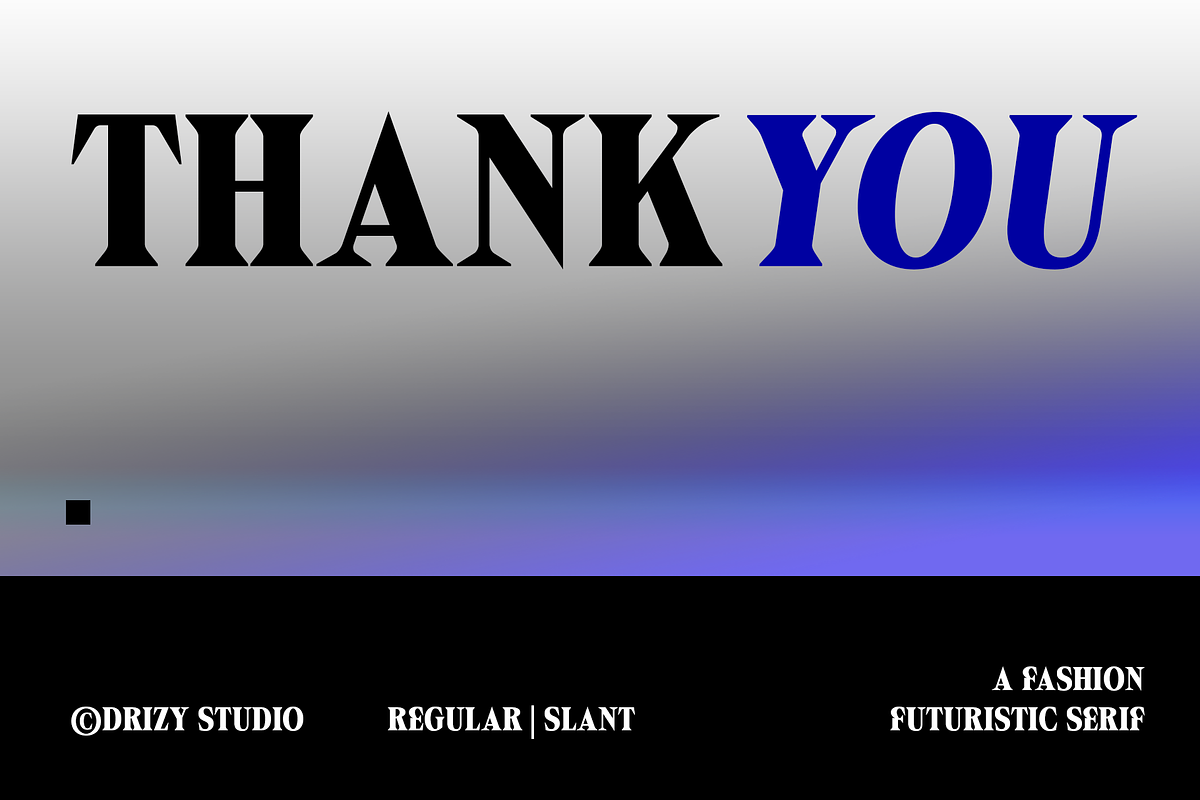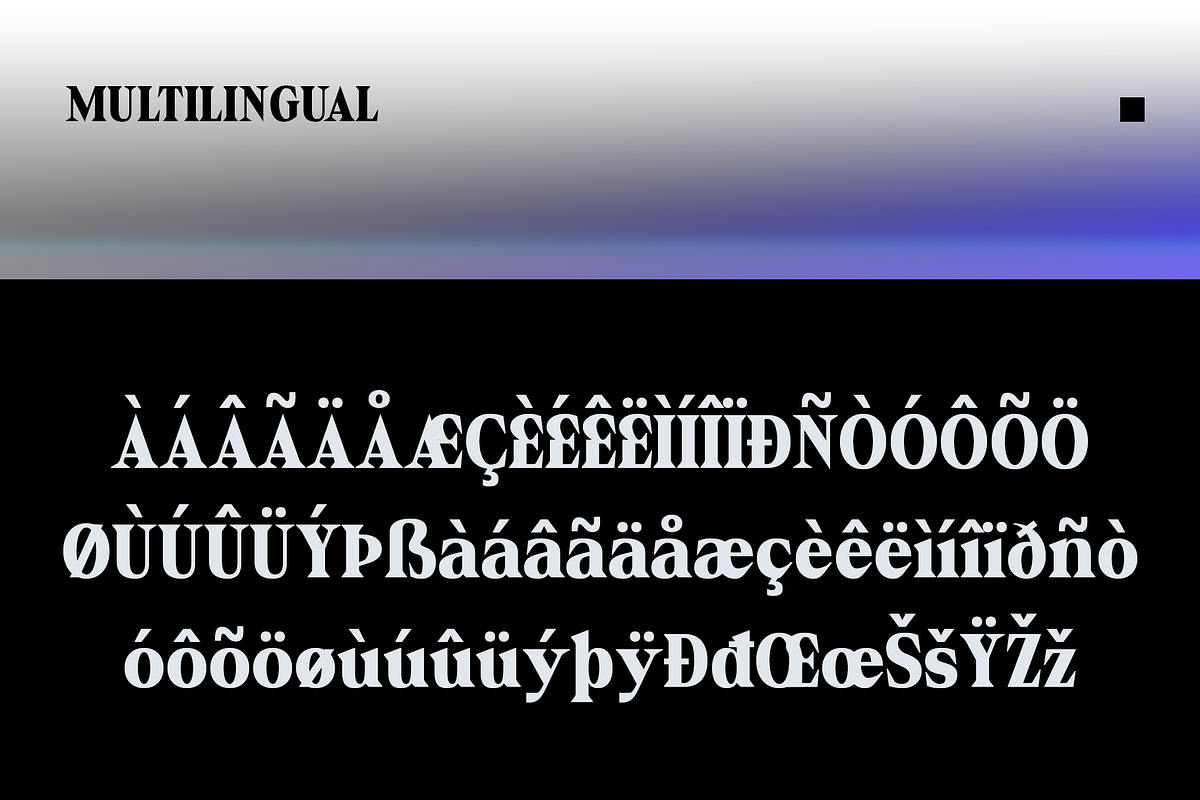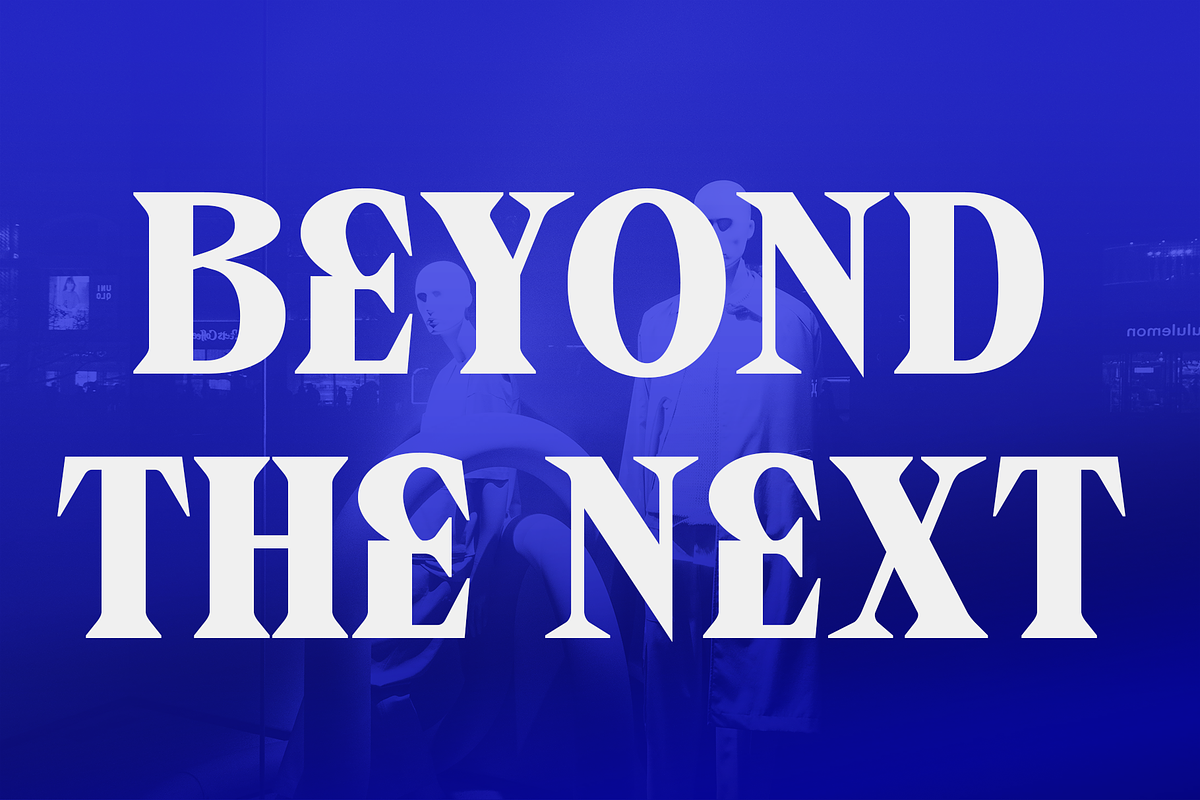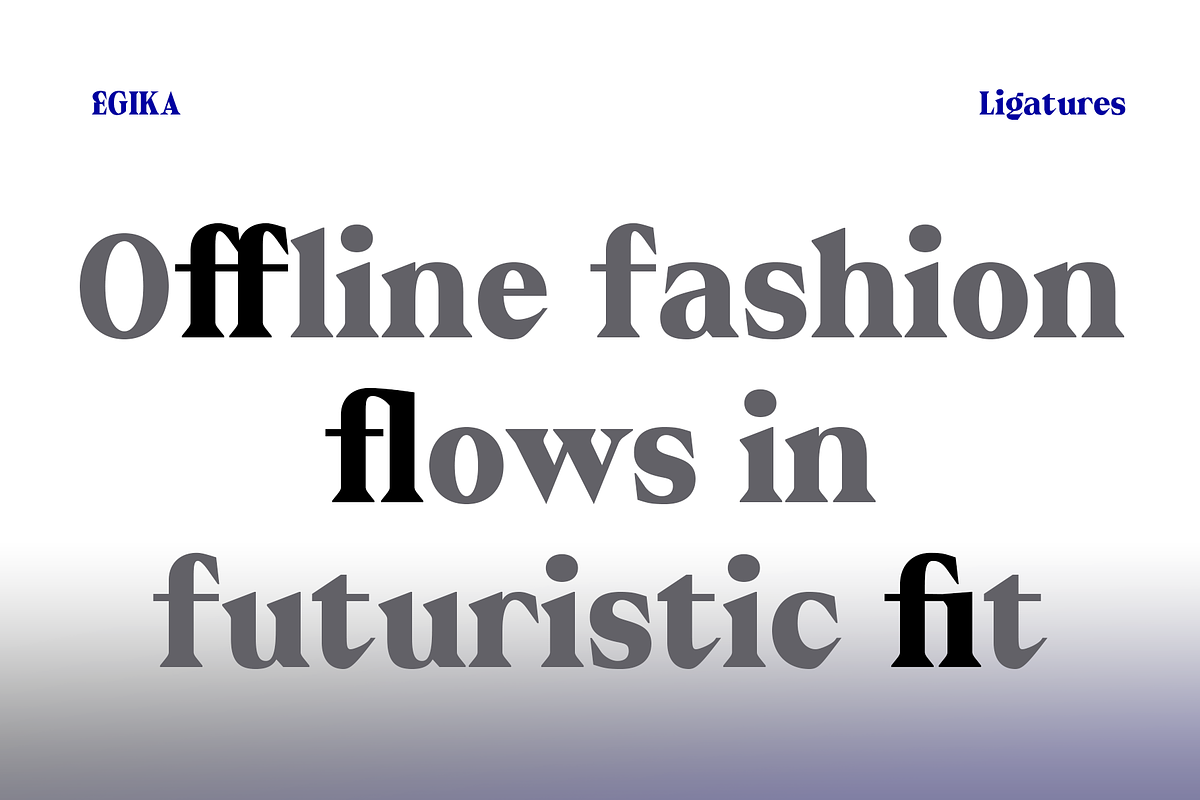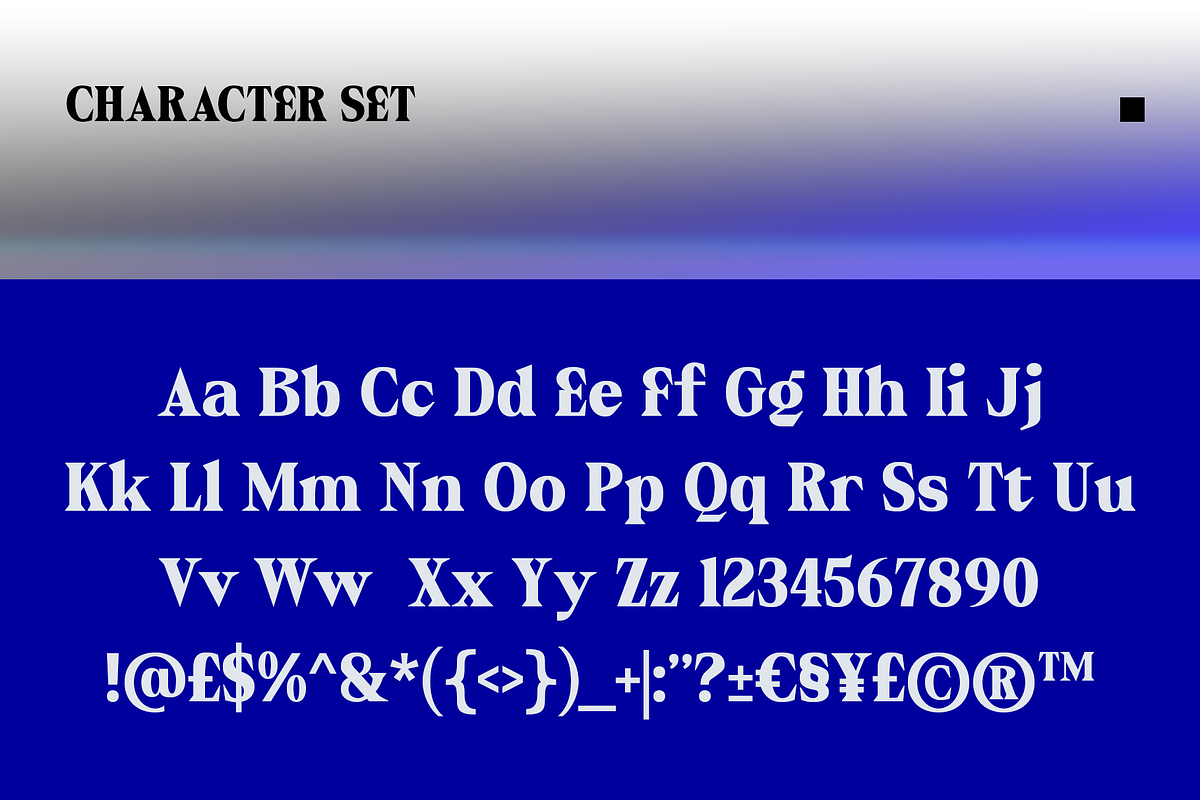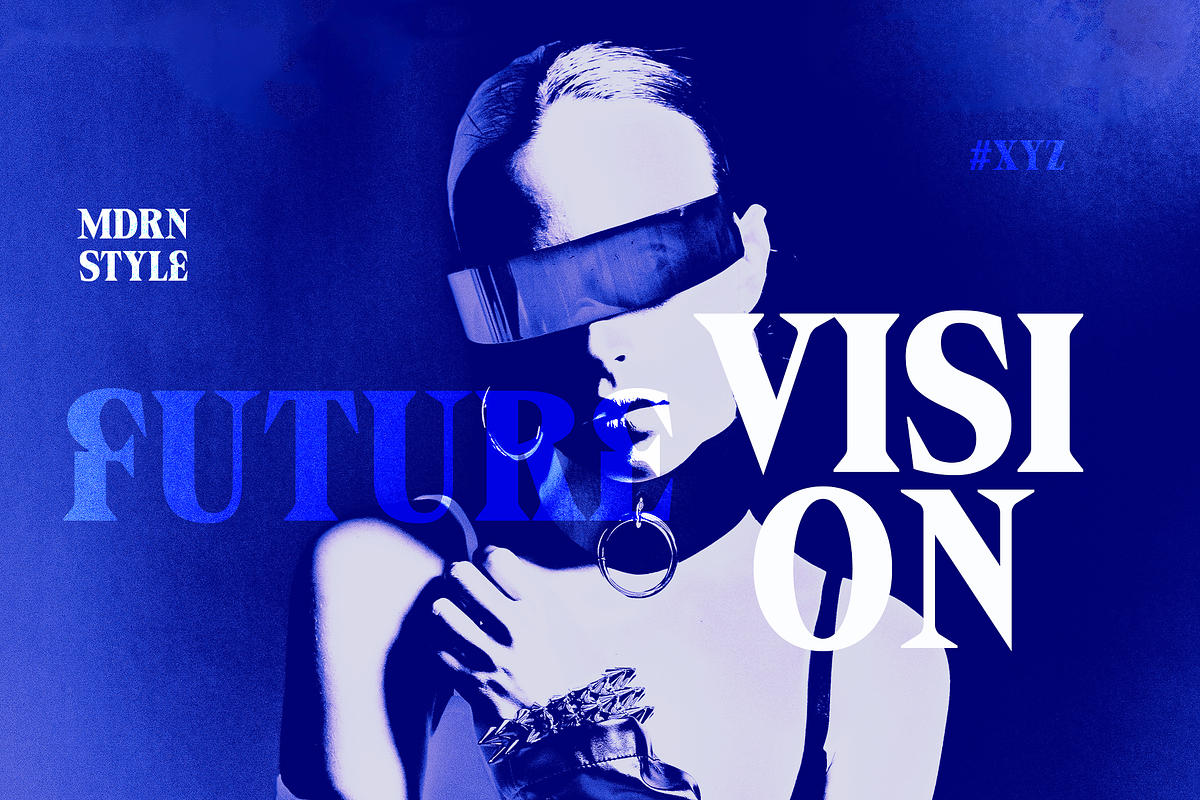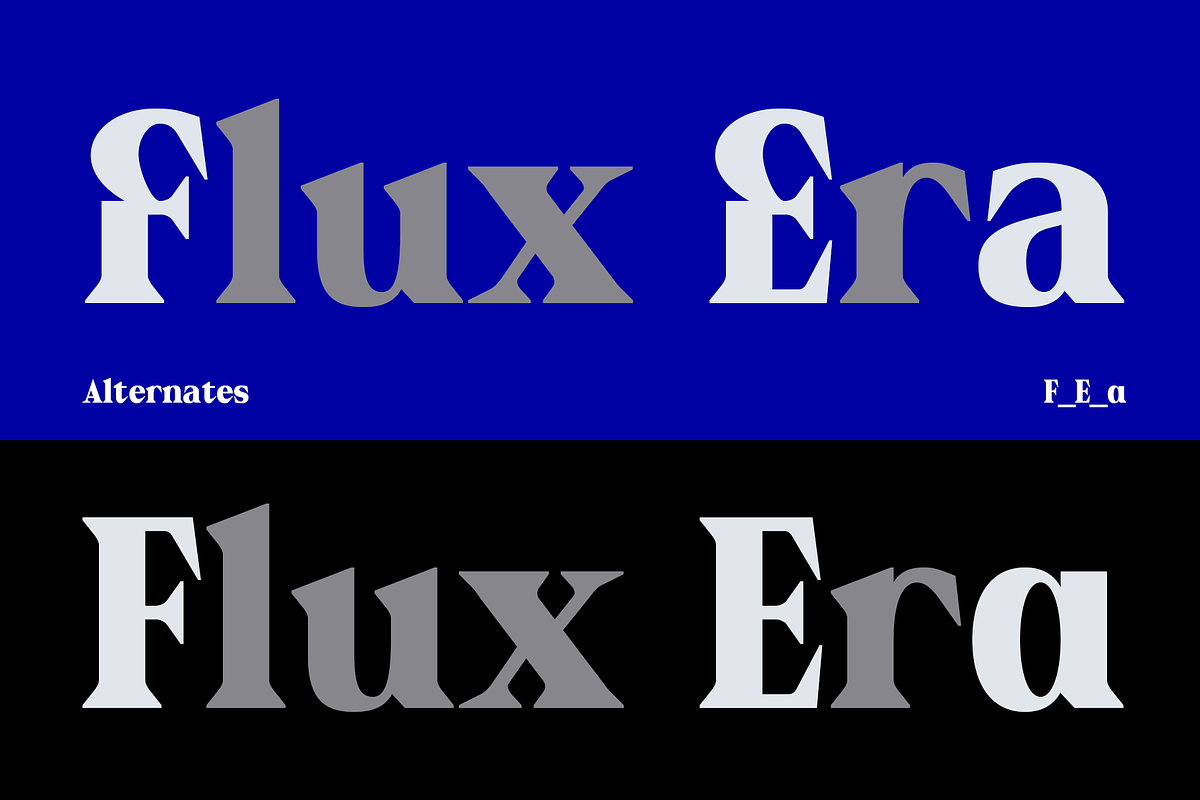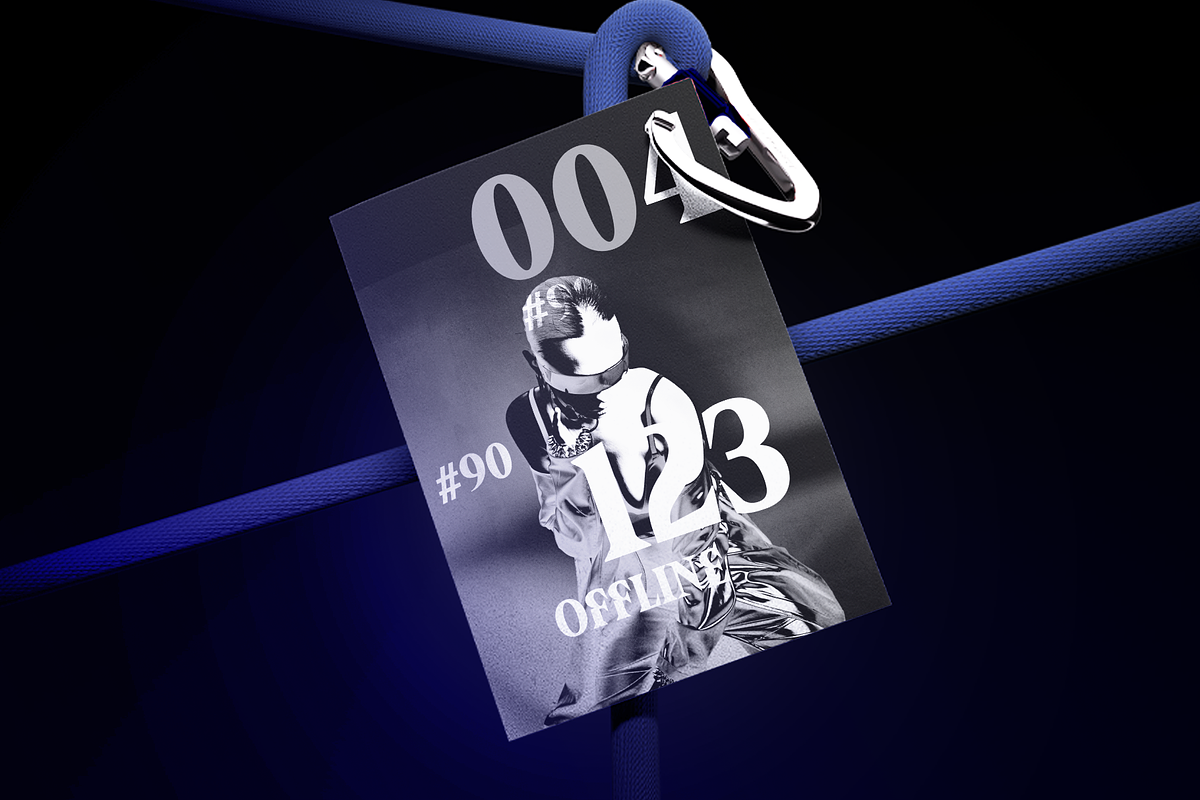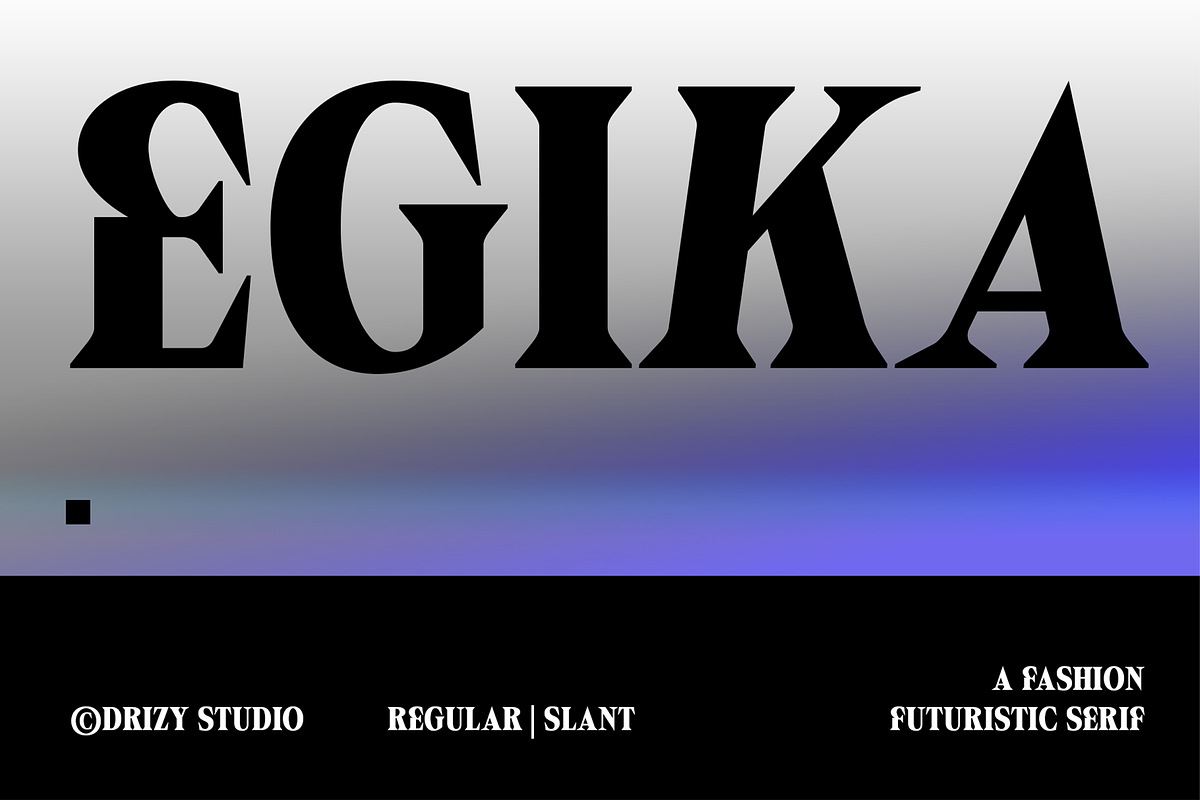
Egika – Fashion Futuristic Serif
Egika-A is a stylish Fashion Futuristic Serif font that blends modern elegance with innovative design. Featuring sleek serif details, refined curves, and a contemporary futuristic aesthetic, this typeface is perfect for luxury branding, fashion editorials, logo design, packaging, social media graphics, magazine layouts, and premium marketing materials.
Designed to stand out while maintaining excellent readability, Egika-A delivers a sophisticated balance between classic serif charm and cutting-edge futuristic style. Its unique character shapes create a distinctive visual identity that works beautifully for high-end fashion brands, beauty products, technology-inspired projects, and modern creative concepts.
Whether you’re crafting a bold logo, designing a striking headline, or building a luxury brand identity, Egika-A provides the perfect combination of Fashion, Futuristic, and Serif elements to elevate your work.
Egika – Fashion Futuristic Serif features:
Lowercase & Uppercase
Punctuation & Numbers
Regular & Slanted